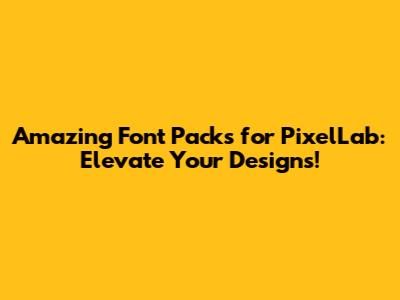
Hey design enthusiasts! Ever felt like your PixelLab projects needed that extra oomph? Maybe your text just wasn't popping the way you envisioned? Well, you're in the right place, because we're diving headfirst into the world of amazing font packs for PixelLab! This guide is all about supercharging your designs with the perfect typography. We'll explore why fonts are so crucial, where to find these incredible font packs, and how to seamlessly integrate them into your PixelLab workflow. Get ready to transform your graphics from good to absolutely stunning! We'll cover everything from the best font styles to the practical steps of downloading, installing, and using them. No more boring text – let's get those creative juices flowing!
Why Fonts are the Secret Sauce of Great Design
Alright, let's talk about why fonts are so incredibly important, guys. Think of a design like a delicious meal. The images, colors, and layouts are the ingredients, but the font? That's the flavoring, the spice that ties everything together. A well-chosen font can make or break your design. It sets the tone, conveys the message, and grabs the viewer's attention. Think about it: a playful, bubbly font is perfect for a children's party invitation, while a sleek, modern font screams professionalism for a business presentation. Fonts aren’t just about making words readable; they're about communicating your brand's personality and making a lasting impression. When you select the right font, you're instantly enhancing the visual appeal of your work. It's like adding a filter to your words, giving them personality, and making them unforgettable. The font subtly guides the eye, highlights key information, and ensures your message is both seen and understood. Don't underestimate the power of typography. It's a fundamental element of design that can make your work stand out from the crowd. Choosing the right font can amplify the impact of your message, turning a simple graphic into a captivating visual experience. The use of appropriate fonts ensures that your designs are not only aesthetically pleasing but also effectively communicate the intended message, making them more memorable and impactful.
The Psychology Behind Typography
Did you know that fonts can actually affect people's emotions and perceptions? Crazy, right? Different fonts evoke different feelings. A bold, strong font might make your audience feel confident and assertive, while a delicate script font might evoke feelings of elegance and sophistication. The psychology of typography is fascinating. It's like you're subtly influencing the viewer's response based on the font you select. When you understand this, you can use fonts strategically to create the desired impact. Consider the target audience and the message you want to convey. Is it formal or informal? Playful or serious? The font you choose should align with your message to enhance its effectiveness. Moreover, the correct typography choice establishes a strong brand identity. Consistent use of specific fonts across all your design elements builds recognition and trust. This consistency makes it easy for your audience to recognize and remember your brand. A well-designed font selection goes beyond mere aesthetics; it's a powerful tool for visual storytelling that can deeply resonate with your audience, making your designs more impactful and memorable. Selecting the right font can significantly enhance the effectiveness of your communication, creating a stronger connection with your audience and improving the overall impact of your design.
Impact on Brand Identity
Fonts play a huge role in establishing and maintaining brand identity. Think of the iconic fonts of major brands: Coca-Cola, Disney, and Apple. These fonts are instantly recognizable and are a crucial part of their brand image. When you use consistent fonts across all your marketing materials, you create a cohesive brand identity that's easy for people to recognize. A well-defined brand identity makes your brand more memorable and strengthens customer loyalty. It shows that you care about the details and that you're committed to delivering a consistent experience. Choosing fonts for brand identity involves more than just aesthetics; it's about conveying your brand's personality, values, and mission. Ensure that the font you select aligns with your brand's voice and communicates the right message to your target audience. A consistent brand identity can establish a stronger connection with your audience and make your brand more memorable. Therefore, investing time and effort in font selection is a crucial step in building a successful brand.
Where to Find Awesome Font Packs for PixelLab
Okay, now the fun part! Where do we get these incredible fonts? There are tons of places to find amazing font packs for PixelLab, both free and paid. Let's explore some of the best resources out there. Ready to dive in and discover where the typography magic happens?
Free Font Resources
Who doesn't love freebies, right? There are several amazing websites offering free font packs that are perfect for PixelLab. Google Fonts is a goldmine, offering thousands of fonts that are super easy to download and use. Then there's DaFont, Font Squirrel, and 1001 Fonts, which also provide a massive collection of fonts, including various styles like sans-serif, serif, script, and decorative fonts. These sites usually have a great search function to help you find exactly what you're looking for, often with categories or tags like